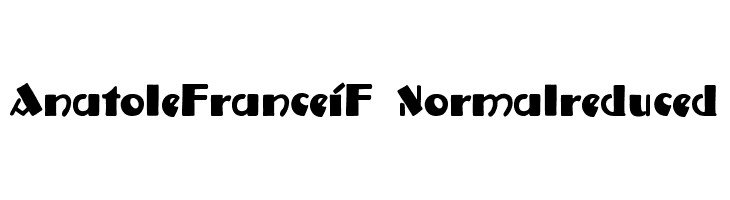
A bold, geometric font with calligraphic influences, perfect for creative and modern designs.
A bold, geometric font with sharp edges and a modern-traditional blend.